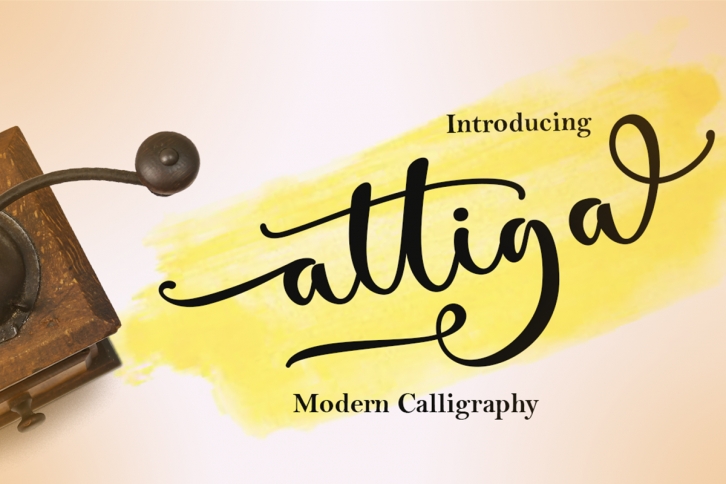
Attiga Script is a beautiful font that was designed by Best Font Studio. It's a great choice for designers and creatives who need such a font. It was released on January 30, 2019 and the file size is 13.51 MB. Attiga Script may give a more youthful, expressive and casual look to your project. It is a very beautiful, refined, elegant, and high-quality font.